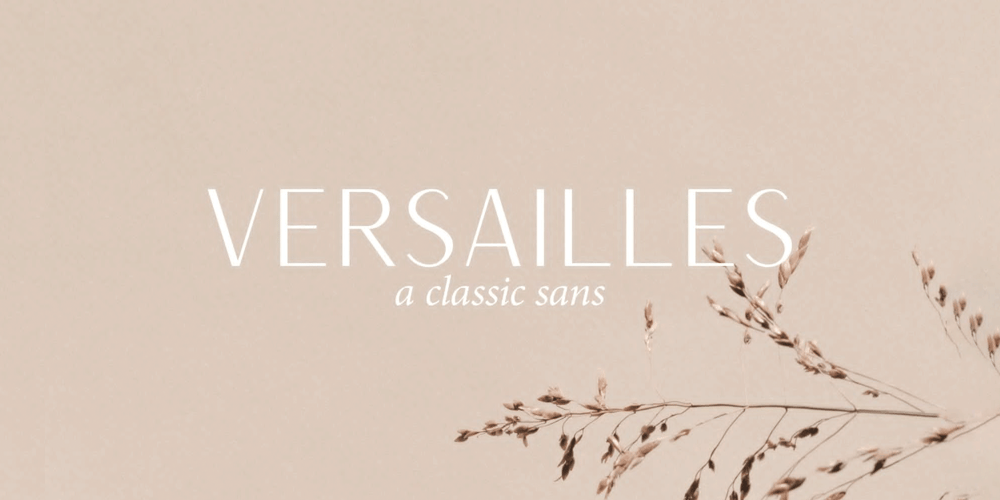
Versailles JW
Versailles JW font
Versailles JW Font Family was designed by Jen Wagner and published by Jen Wagner Co.. Versailles JW contains 1 styles and family package options. Versailles is a timeless sans serif with the classiness of a serif font. With smooth and clean lines, and just a touch of contrast, Versailles works beautifully for logos, branding, and web headings.Check out the samples for some examples of how you can use it (and for a peek into my playlist while making this font!).I really enjoy pairing this font with Proxima Nova.